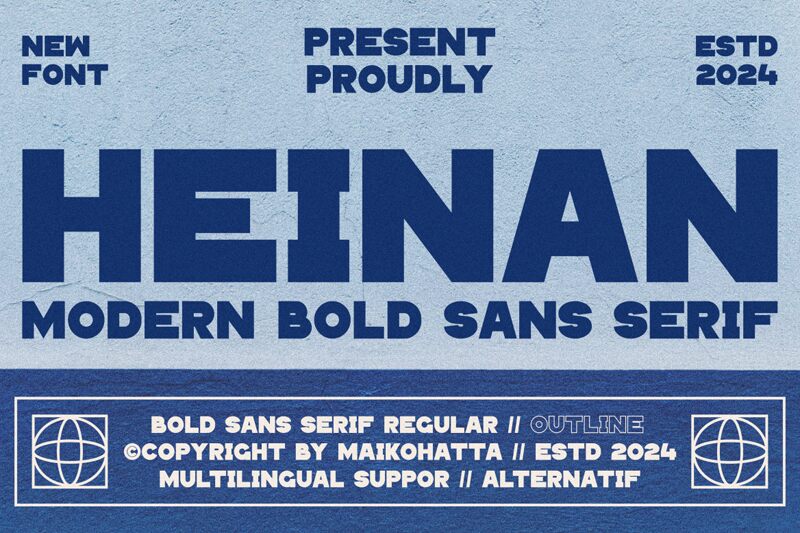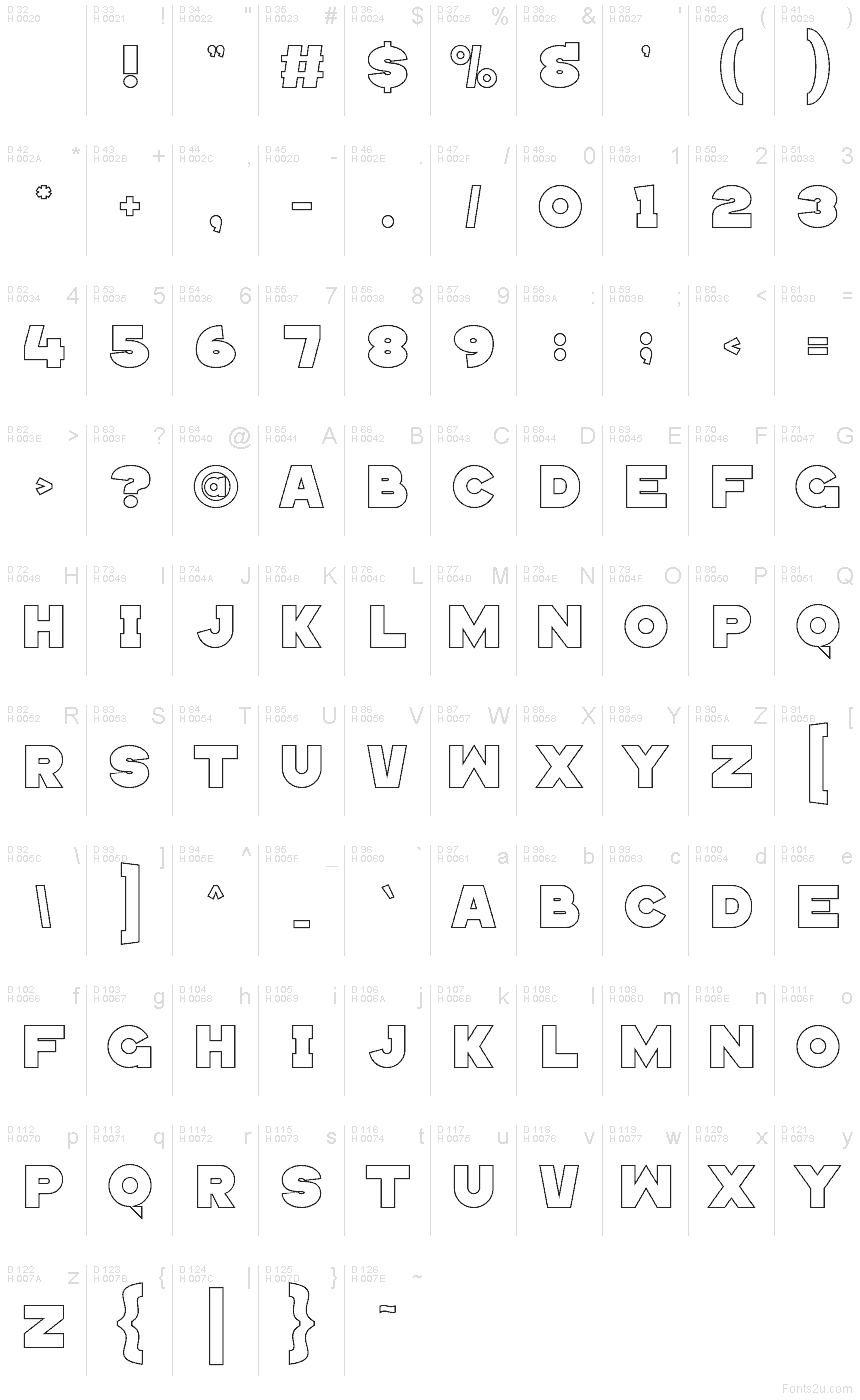
HEINAN Outline
Heinan Outline font by Gilang Ternadho is a free outlined sans serif font that turns any headline into a bold graphic object. Its chunky, straight-edged forms and precise wireframe strokes feel like they’ve been plotted with a technical pen, giving text a strong architectural presence without feeling heavy. The Heinan font family’s rigid geometry keeps words compact and punchy, making even short titles snap into place like blocky signage.
Using Heinan Outline, you can build striking posters, event flyers, album covers, gaming graphics, tech branding, and bold social media titles that read fast yet feel custom. This free font works beautifully at large sizes where its clean interior space can hold images, gradients, or textures. For balance, pair Heinan Outline with a simple, neutral sans for body text and let this outlined typeface handle the loud parts.